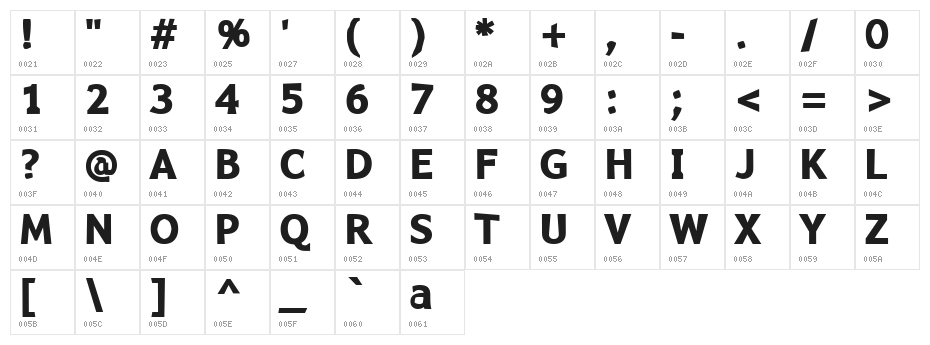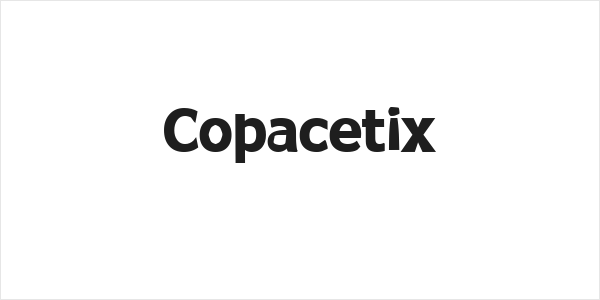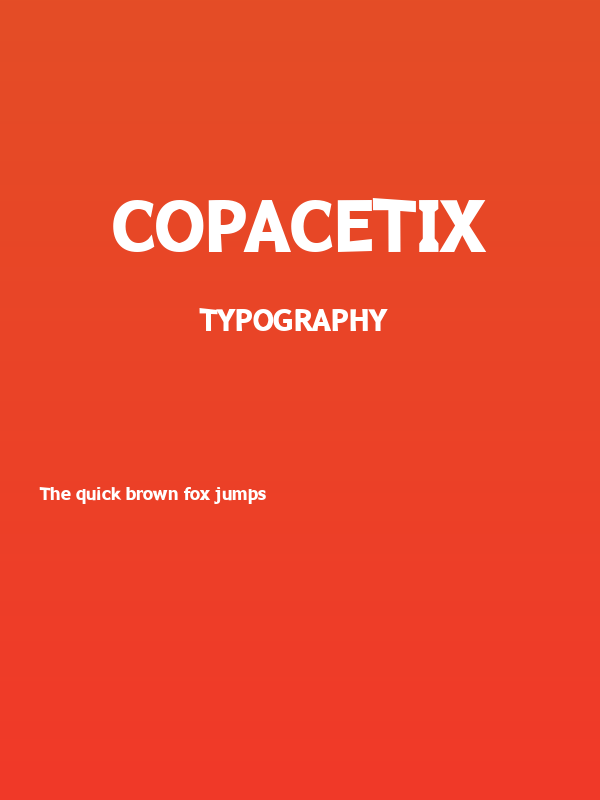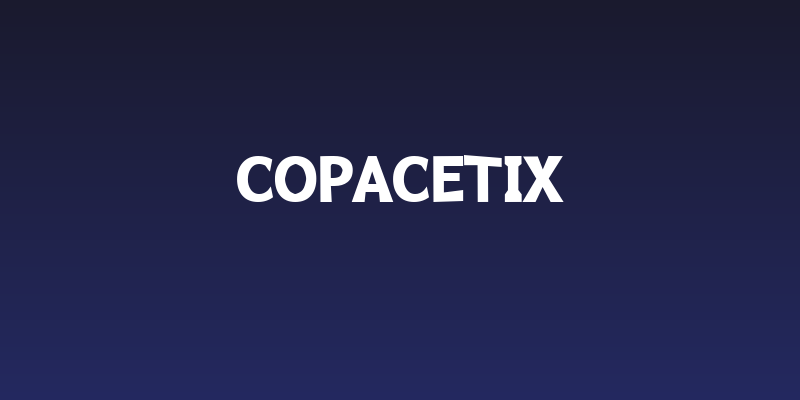
Copacetix Font
Copacetix Description
This font features bold, strong lines with a modern and clean aesthetic. The uppercase letters are uniform in height, creating a cohesive look, while the lowercase letters maintain a consistent style with slightly rounded edges. The numerals are clear and easy to read, matching the boldness of the alphabet characters. Special characters are well-defined, adding versatility to the font. The overall design is straightforward yet impactful, making it suitable for various applications where clarity and emphasis are needed.
| Use Case | Headlines, Logos, Advertising |
| Proposed Projects | Ideal for branding, advertising, headlines, and digital media where a strong, modern impact is desired. |